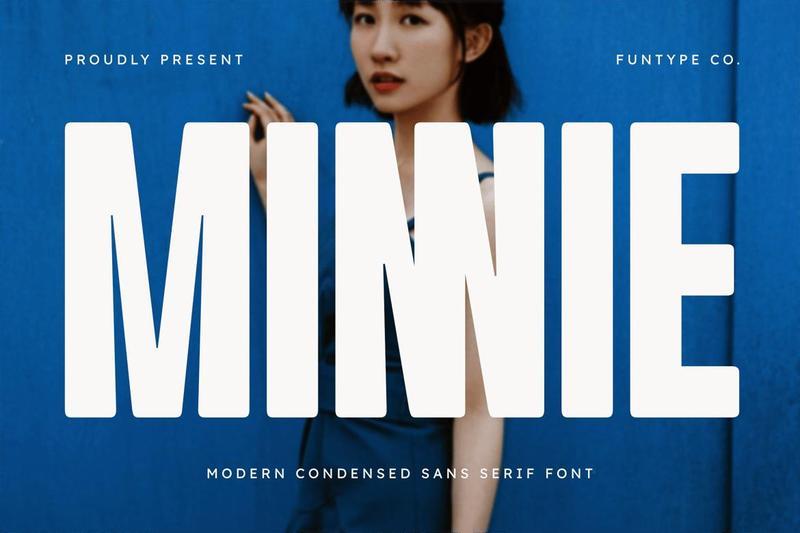
**Minnie Modern Condensed Sans Serif Font**
**Minnie** is a bold, high-impact, and modern condensed sans serif font, meticulously engineered to bring a commanding structural presence, clean geometric precision, and exceptional space utility to contemporary display layouts. Built with a towering vertical profile, compact horizontal tracking, and smoothly softened outer curves, Minnie introduces a professional luxury lifestyle, editorial, and high-fashion aesthetic that projects supreme visual authority with a approachable touch.
This font family is the definitive choice for creative directors, digital publishers, and agency brand designers looking to implement a space-efficient, heavyweight typography identity for prominent text hierarchies. Whether you are developing luxury corporate branding, travel and lifestyle editorial covers, cosmetic firm logotypes, cinematic movie title sequences, architectural portfolios, or prominent digital live-stream headers, Minnie stands out with exceptional legibility and striking geometric confidence.
**Main Features:**
– Modern Condensed Sans Structure: Optimized with a narrow horizontal profile for dense, space-saving, and high-impact title compositions.
– Towering Vertical Proportions: Elongated heights crafted to secure immediate audience attention and a premium editorial feel.
– Luxury & Lifestyle Aesthetic: Clean linear strokes with a sophisticated geometric finish, perfect for cutting-edge corporate identities and digital media networks.
**Best Used For:**
High-end editorial layout design, luxury lifestyle branding, cosmetics packaging, cinematic title sequences, real estate developments, corporate enterprise logotypes, technology infrastructure headers, and large-scale web splash banners.